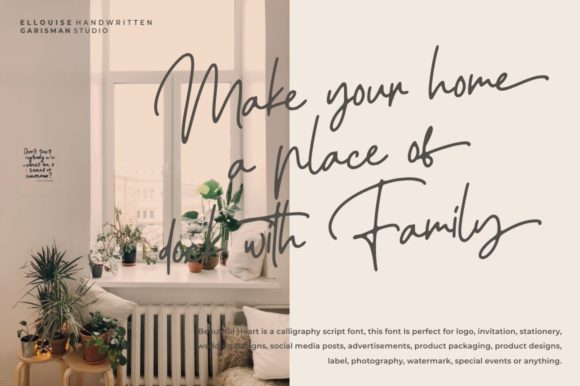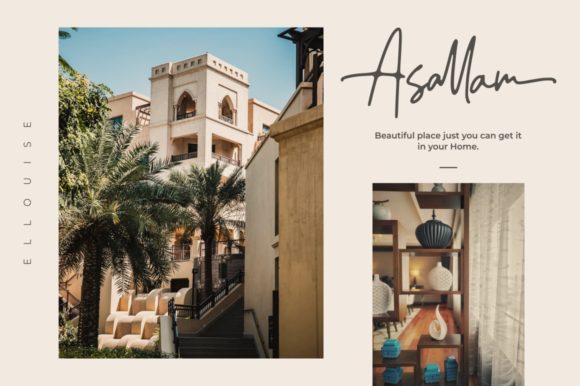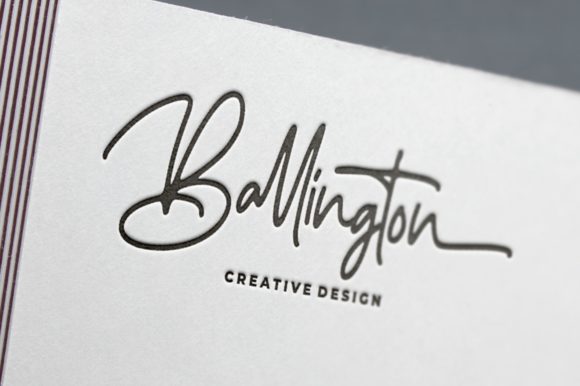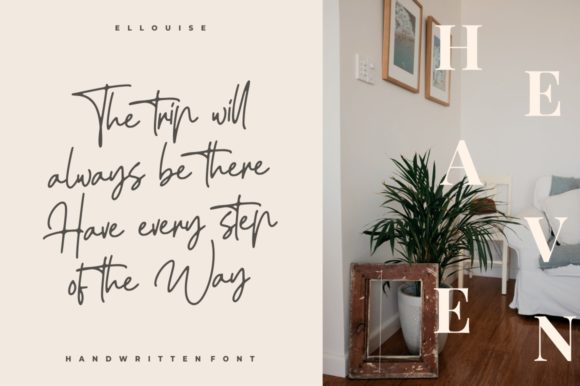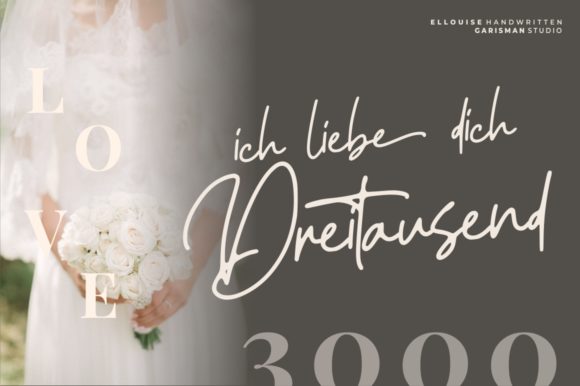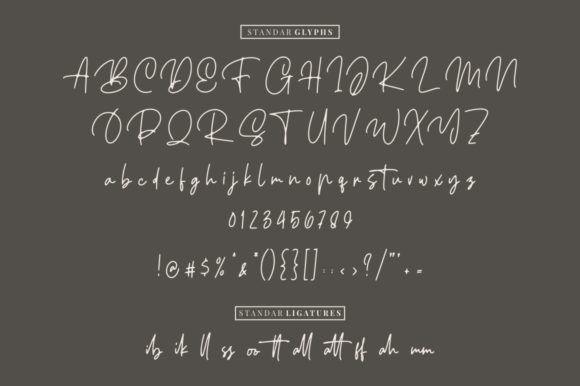
Introducing Ellouise Font: Elevate Your Craft Projects with Elegance
Are you a designer or crafter looking for a unique and sophisticated script font to add a touch of elegance to your projects? Look no further than Ellouise Font. This stunning script font is designed to bring a level of refinement and poise to any craft project, making it perfect for those who value attention to detail and style.
The Beauty of Ellouise Font
Ellouise Font is a one-of-a-kind script font that boasts great ligatures, which are essential for creating beautiful, flowing text that is a joy to read. The font’s unique design ensures that each letter blends seamlessly into the next, creating a smooth and sophisticated look that is sure to impress. Whether you’re working on a DIY craft project, a branding campaign, or a personal blog, Ellouise Font is the perfect choice.
What Makes Ellouise Font So Special?
So, what sets Ellouise Font apart from other script fonts on the market? Here are just a few features that make it a standout:
- Unique Ligatures: Ellouise Font features beautiful ligatures that add a touch of elegance to any text. These ligatures are carefully designed to create a seamless flow between letters, making your text look polished and refined.
- Sophisticated Design: The font’s sophisticated design makes it perfect for a wide range of applications, from crafting and DIY projects to branding and advertising.
- Easy to Read: Despite its elegant design, Ellouise Font is easy to read, making it perfect for body text as well as headlines.
- Versatile: Ellouise Font can be used for a wide range of projects, from paper crafting and scrapbooking to digital design and branding.
How to Use Ellouise Font in Your Craft Projects
Using Ellouise Font in your craft projects is easy. Here are a few ideas to get you started:
- Paper Crafting: Add a touch of elegance to your paper crafting projects, such as cards, invitations, and scrapbook pages.
- Scrapbooking: Use Ellouise Font to add beautiful journaling and captions to your scrapbook pages.
- DIY Crafts: Add a personal touch to your DIY crafts, such as wood signs, fabric crafts, and home decor projects.
- Digital Design: Use Ellouise Font in your digital design projects, such as branding, advertising, and social media graphics.
Tips for Getting the Most Out of Ellouise Font
Here are a few tips for getting the most out of Ellouise Font:
- Experiment with Different Sizes: Ellouise Font looks great in a variety of sizes, from small body text to large headlines.
- Play with Ligatures: Take advantage of Ellouise Font’s beautiful ligatures to add a touch of elegance to your text.
- Pair with Other Fonts: Experiment with pairing Ellouise Font with other fonts to create a unique and interesting look.
Ellouise Font is a unique and sophisticated script font that is perfect for designers and crafters looking to add a touch of elegance to their projects. With its beautiful ligatures, sophisticated design, and ease of use, Ellouise Font is sure to become a favorite in your font collection. So why wait? Download Ellouise Font today and start elevating your craft projects with elegance and style.